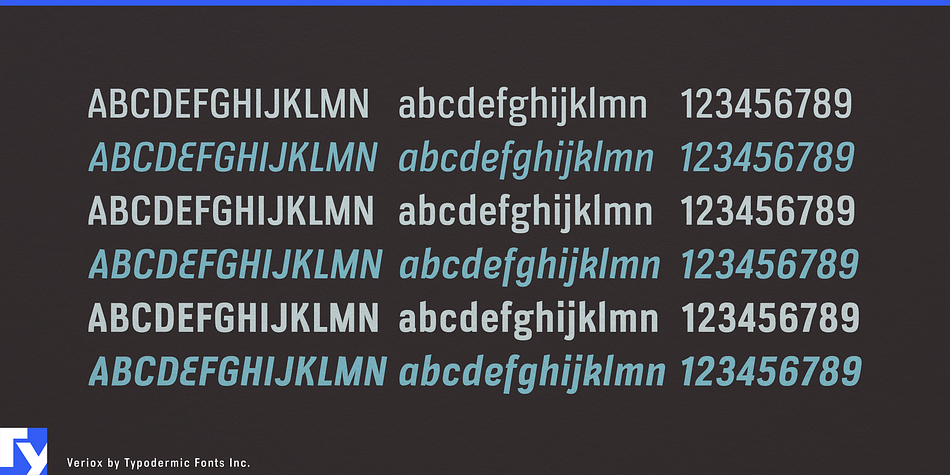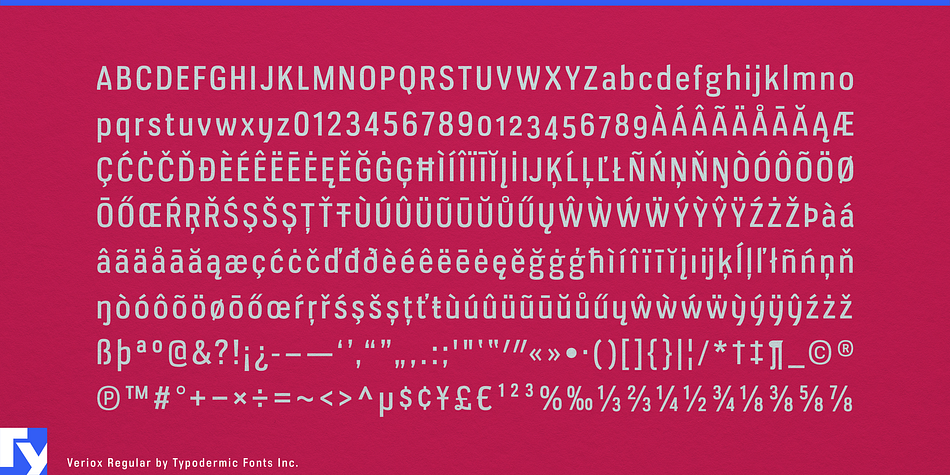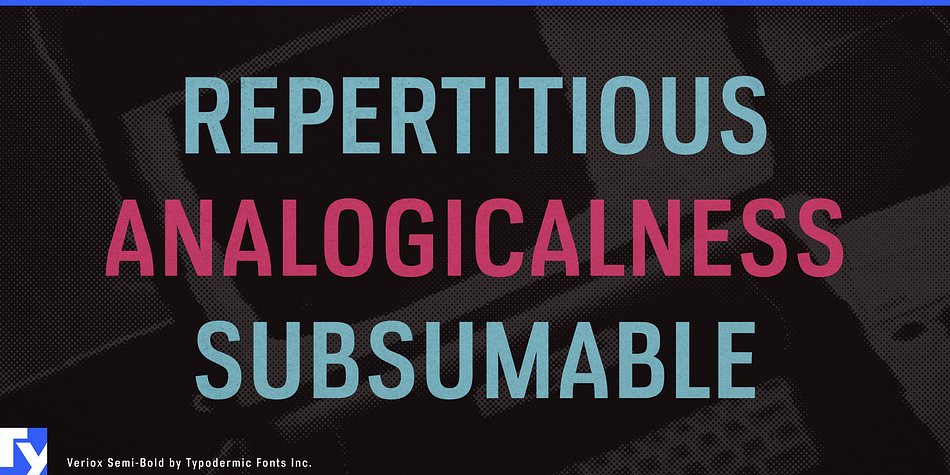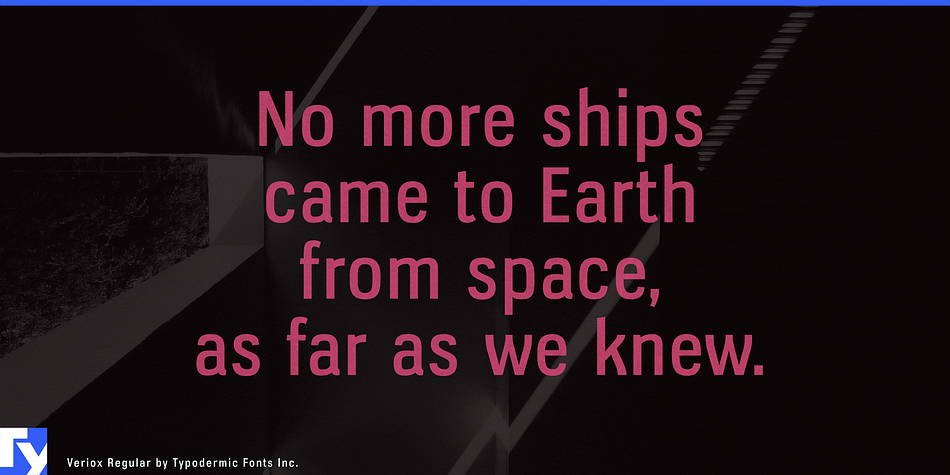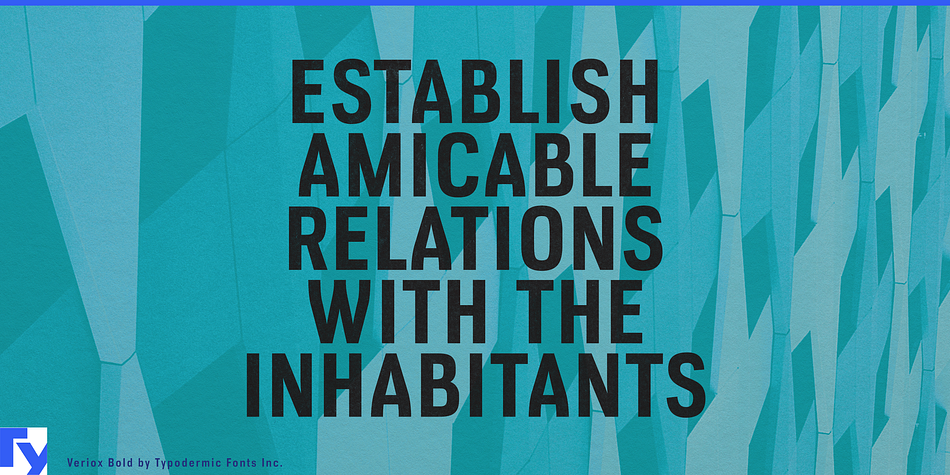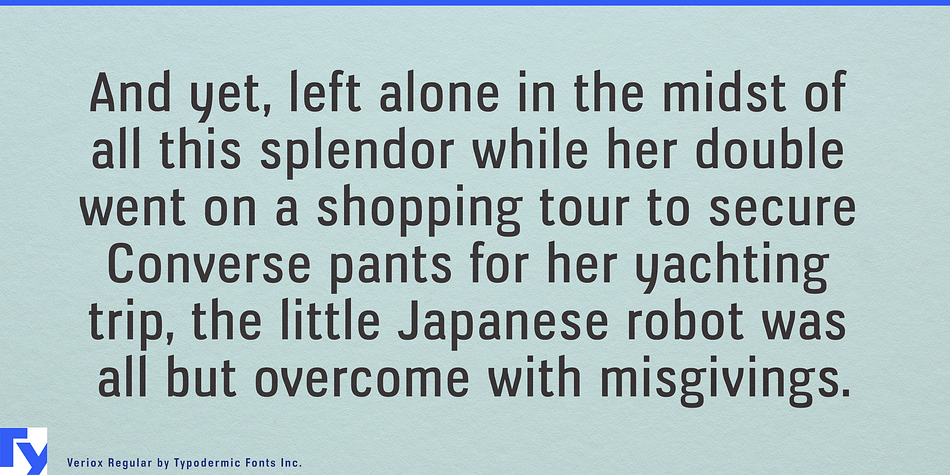
Veriox is a sans serif font family. This typeface has six styles and was published by Typodermic Fonts Inc.
What’s cooler than a hyper-ellipse? If current trends in sans serif type design are anything to go by, a compact sans serif with hyper-elliptical forms and subtly angled branching should fit that shoe. But designers need more than just a contemporary shoe—they need shoes people will notice with the requisite style to make spectators ponder the message, without stealing the show. Fractured strokes on k, v, w and x give Veriox a competitive edge devoid of the self-conscious post-modernism afflicting its rivals. A binocular “g” maintains the lineage with tradition we expect.